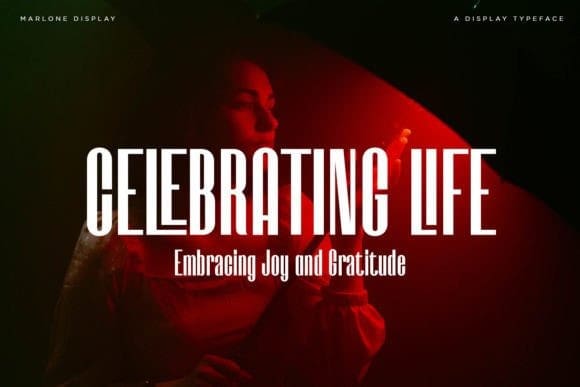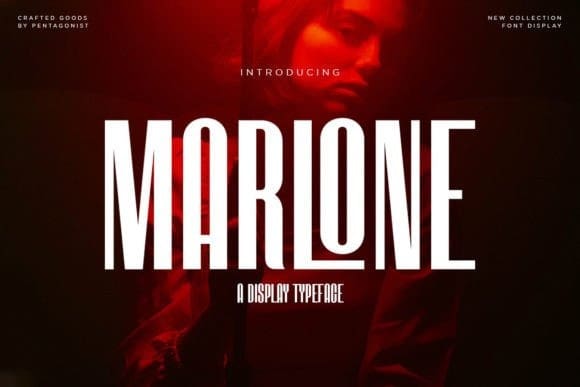
Marlong Font
Marlong Font is a retro and vintage display font perfect for any design you wish to create. Add it to your banners, logos, shopping bags, cards, book covers; magazines, and more, and they will catch everyone’s attention!